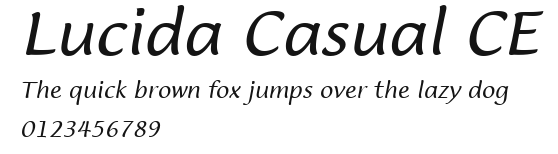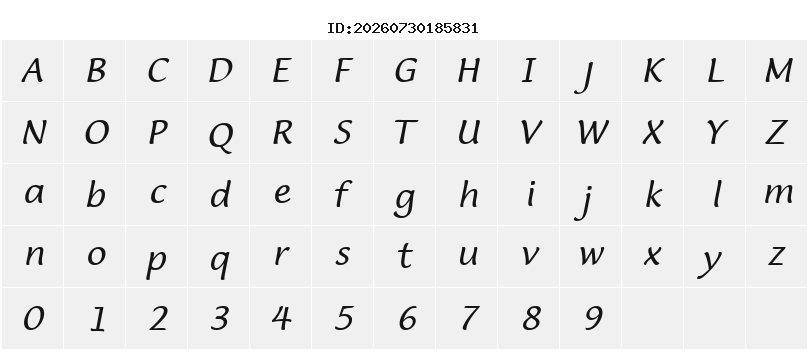
• Font Name: Lucida Casual CE
• Font ID: Bigelow & Holmes - Lucida Casual CE Italic
• Full Font Name: Lucida Casual CE Italic
• Version: August 1993
• PostScript Name: LucidaCasualCE-Italic
• Character Count: 221
About Lucida Casual CE.ttf
Lucida Casual CE.ttf is a modern, elegant sans-serif font designed for ultimate readability and visual harmony. Perfect for branding, headlines, web design, and print materials.